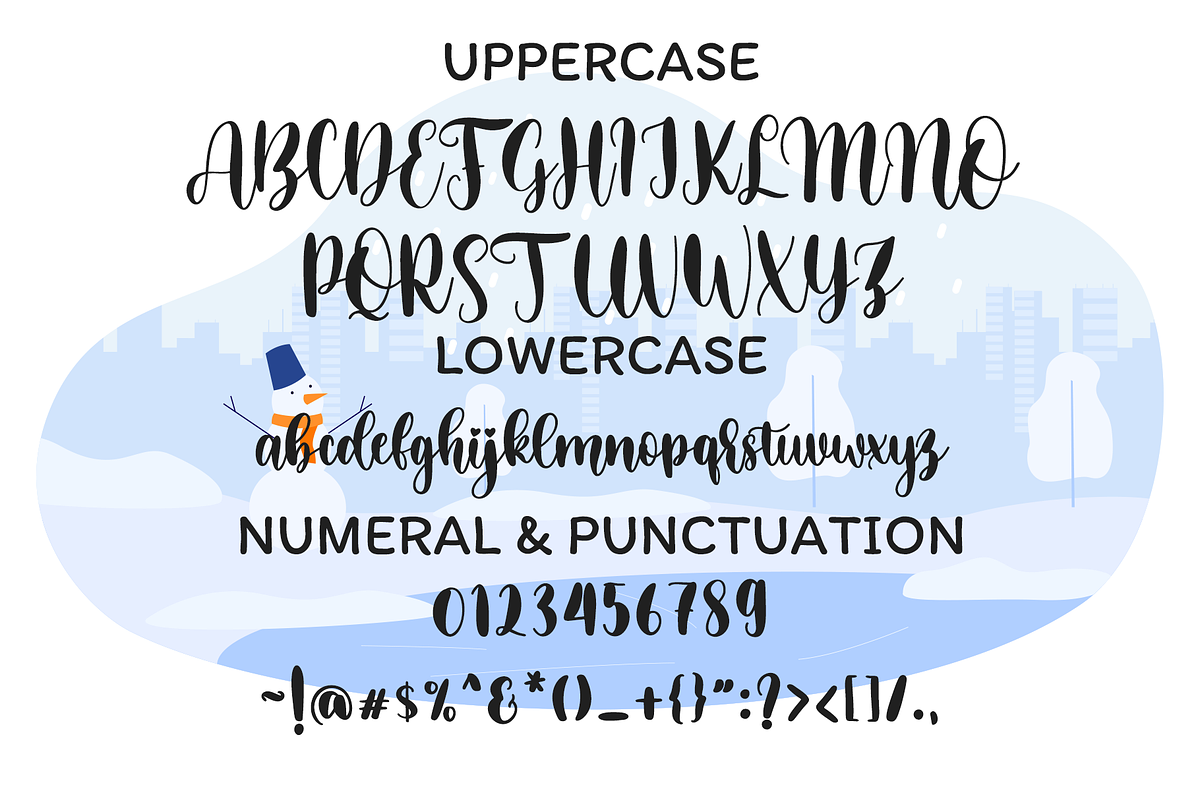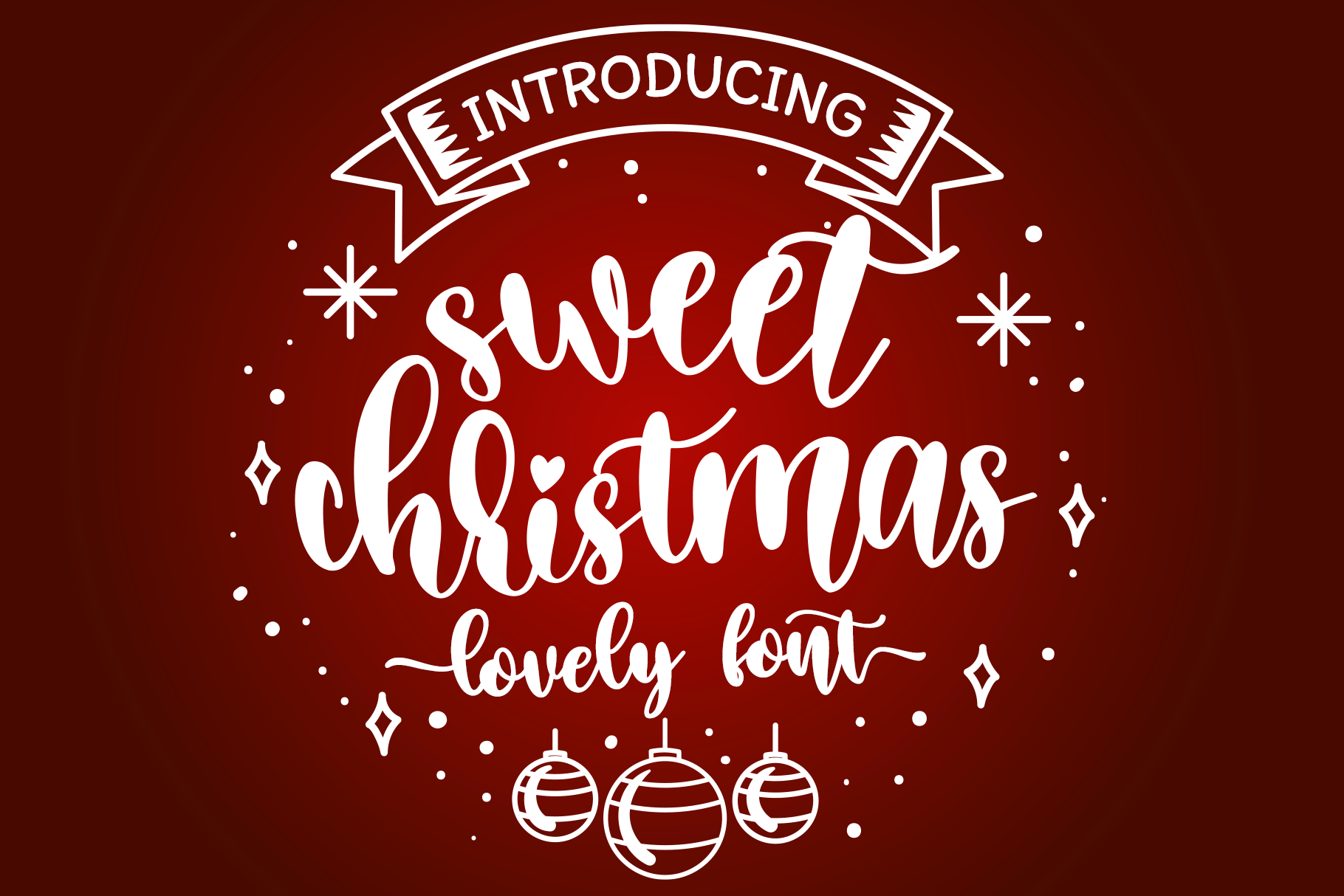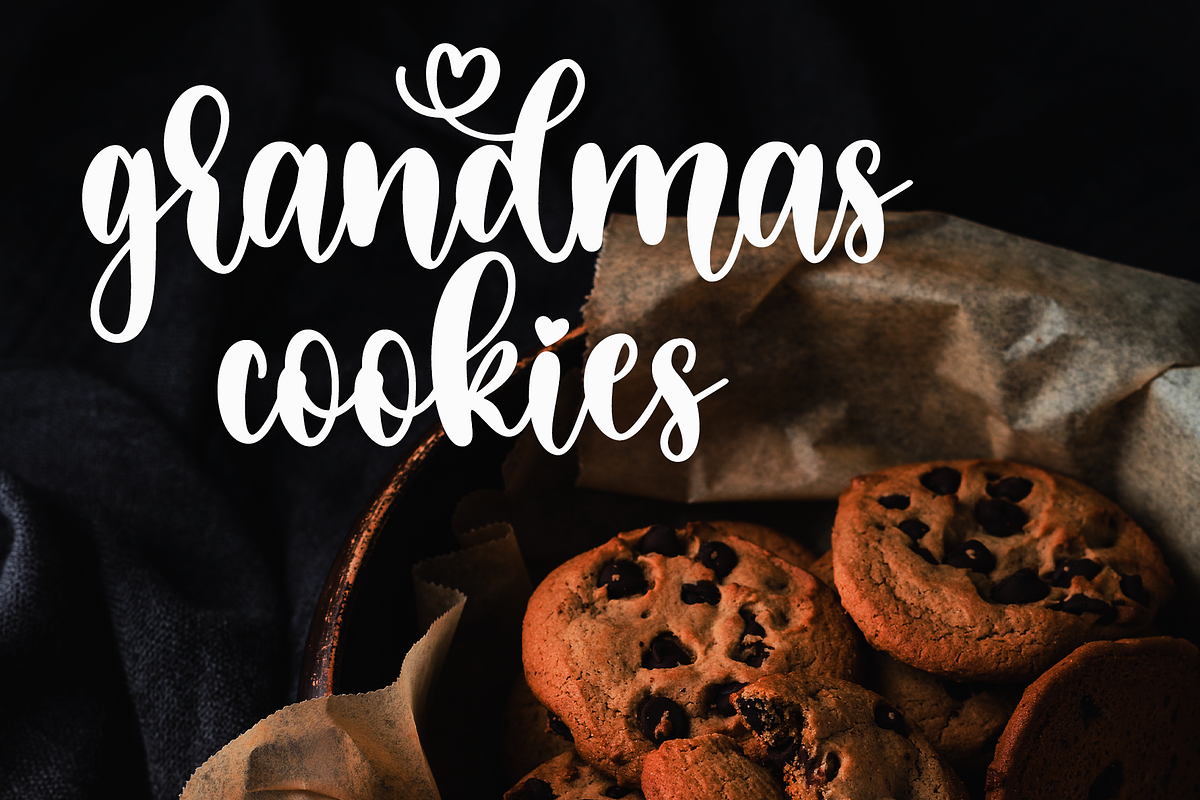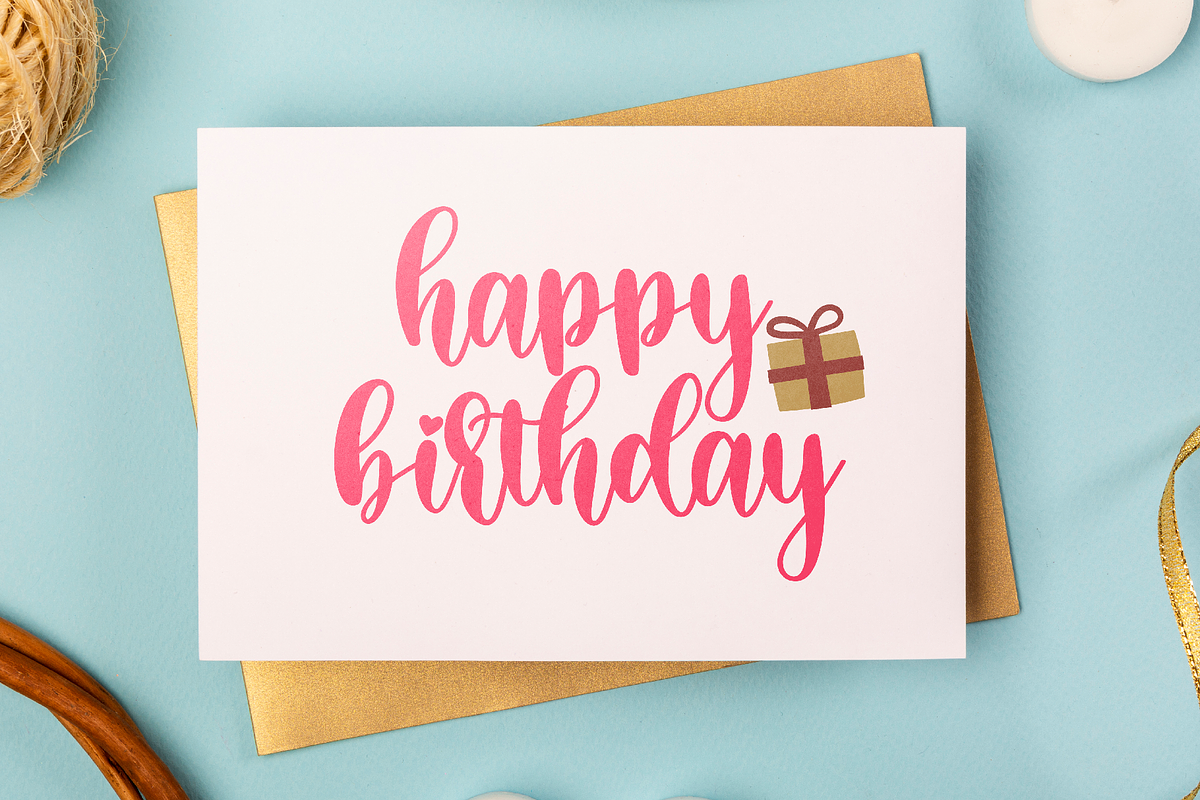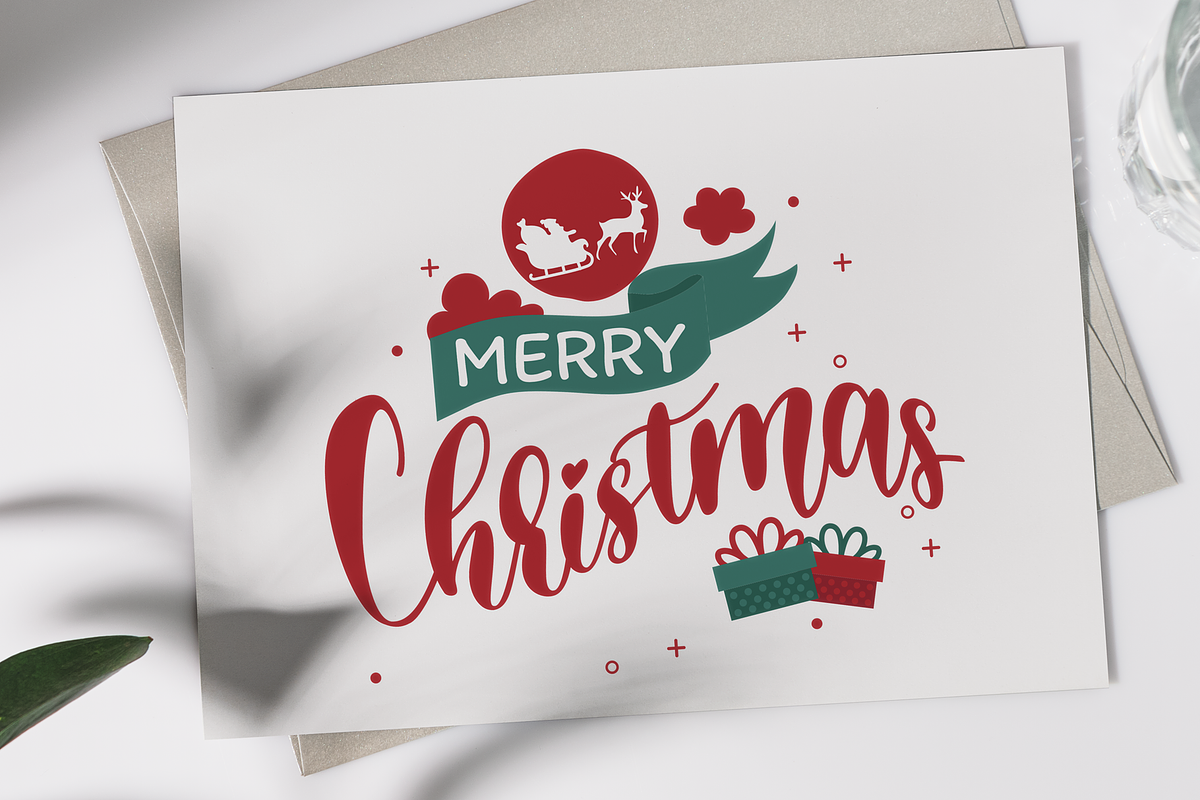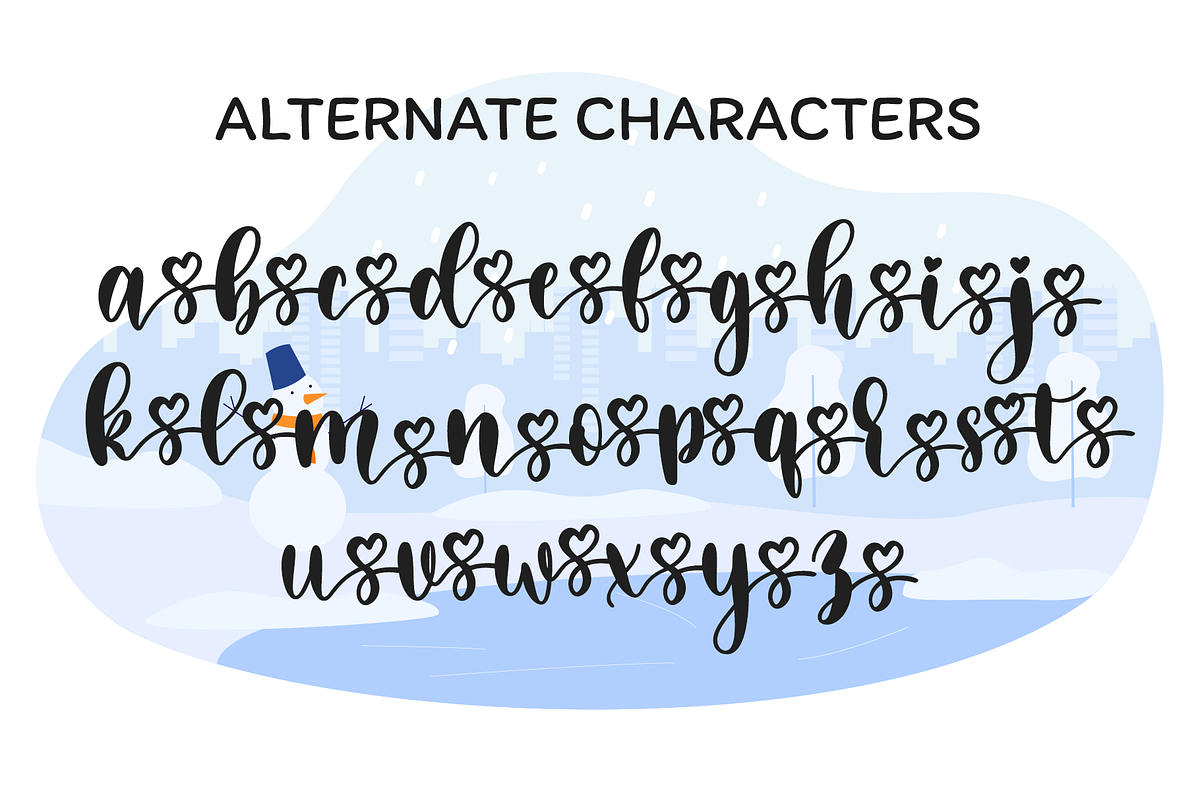
Sweet Christmas | Lovely Font
Sweet Christmas is a beautiful and refined script font. It has a classy, elegant and modern look that can be used for logos, branding, invitations, stationery, wedding designs, social media posts, and much more! Sweet Christmasi s PUA encoded which means you can access all glyphs and swashes with ease
- Ligature Character